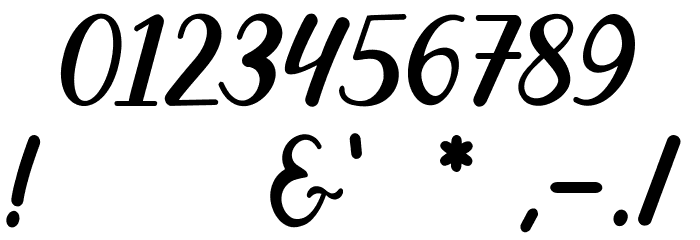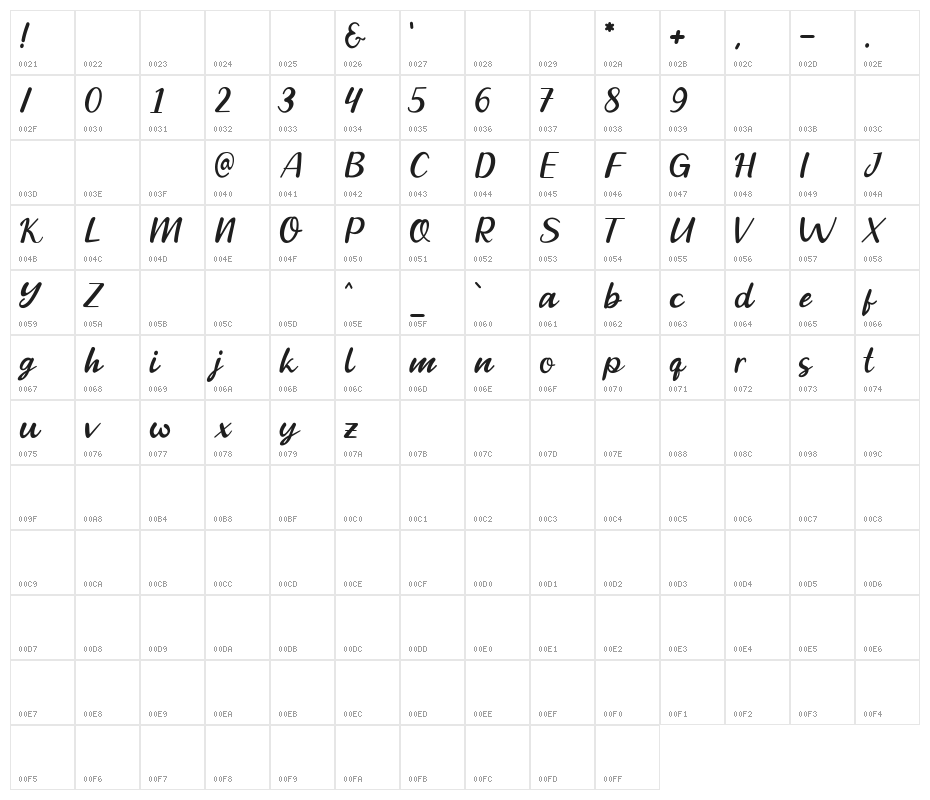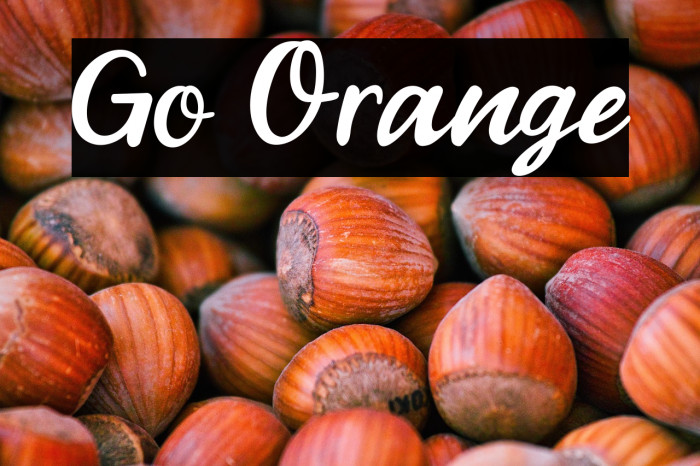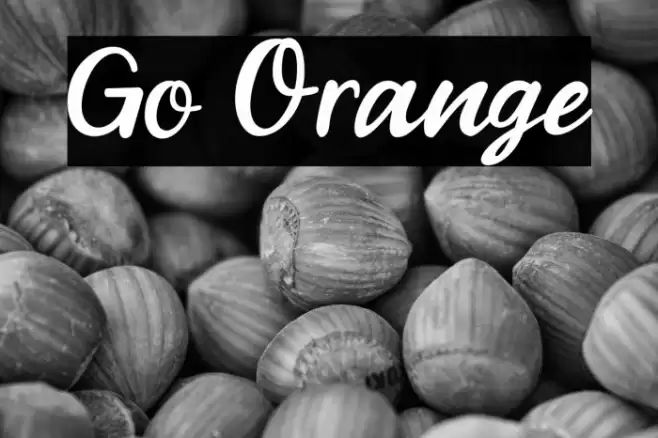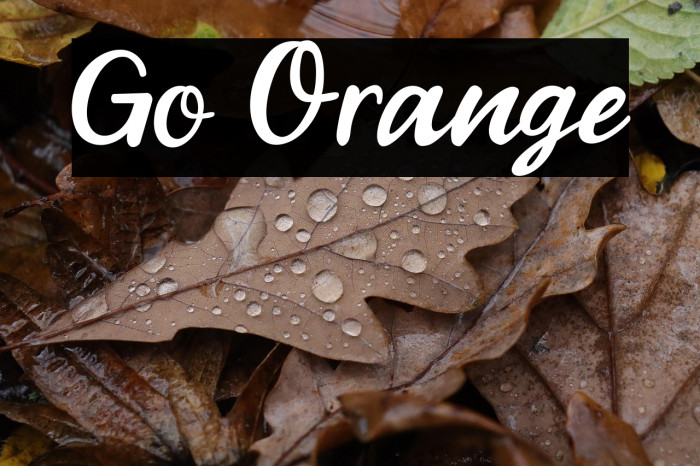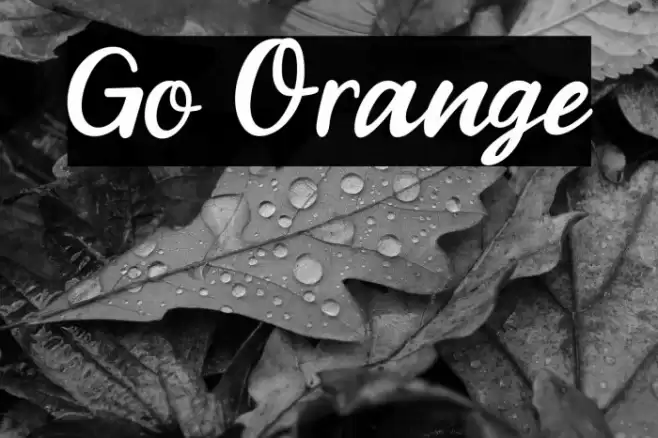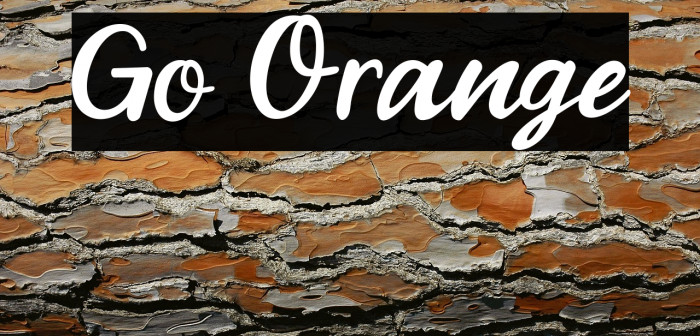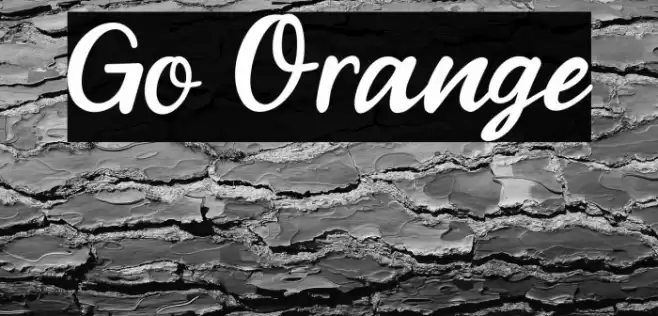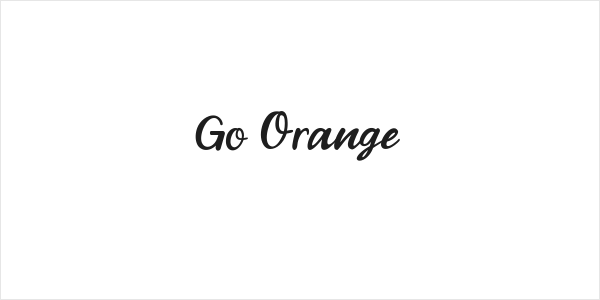
Go Orange Font
Go Orange Description
This font features a dynamic and fluid script style, characterized by its smooth, flowing lines and elegant curves. The uppercase letters are slightly slanted, giving a sense of motion and energy, while the lowercase letters maintain a consistent rhythm with their connected strokes. The numerals are designed with a similar flair, ensuring a cohesive look across all characters. Special characters are crafted with the same attention to detail, enhancing the font's versatility. The overall appearance is both stylish and approachable, making it suitable for a variety of design applications.